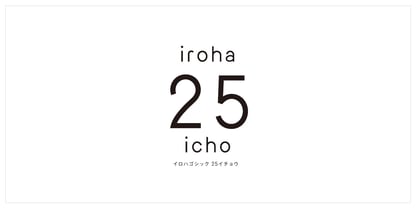
iroha 25icho StdN
by Kinuta Font Factory
iroha 25icho is a timeless and multifunctional typeface suitable for any purpose. iroha's kanji characters are common - the same as those used for the original typeface. The design is simple, with a focus on straight lines. There are 12 kana types in total.
Experience the joy of using different kana characters. When you look at the characters, thoughts and ideas naturally come to mind. Why did it take this form? How would I do it? For example, the font “iroha gothic” from Kijima Type Foundry has 12 different kana characters.Just as there are “voice actors” who convey words through their voices, there should also be “character actors” who convey words through characters. This font was created with that idea in mind. Experience the unique charm of Japanese, which combines kanji and kana, through this font.The richness of language will surely uplift your spirit.